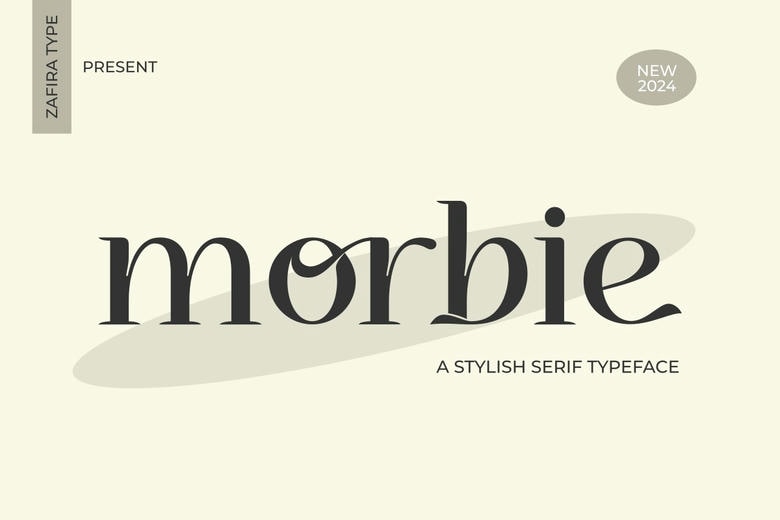
Morbie Font
Morbie is a serif font that blends classic style with modern elegance. It has a clean, professional look, bringing together the traditional charm of serif fonts with the clarity needed for easy reading. Morbie is simple to read and fits a wide range of design projects, both in print and online.
Every letter in Morbie has subtle, elegant details and is carefully designed, giving the font an attractive look. Its balanced shape and steady x-height help make it easy to read at any size or on any platform.
Morbie Serif Font